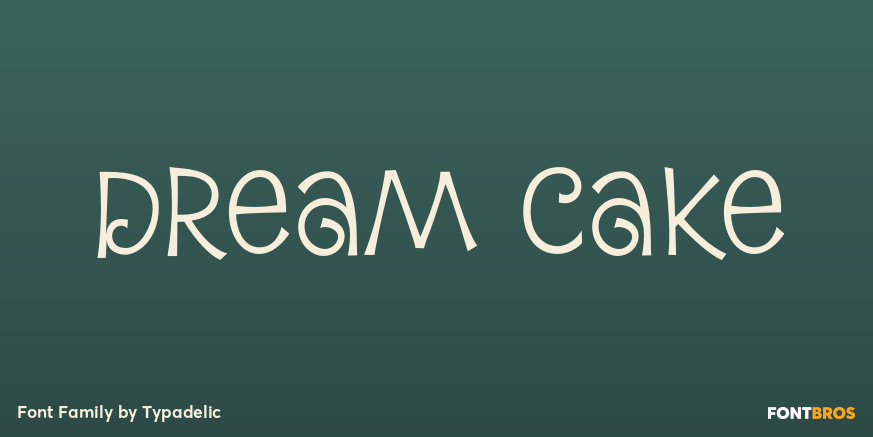
About Dream Cake
While I was developing this font, my mother kept feeding me something she calls ?Dream Cake?. This indescribably delicious confection fueled my inspiration (there\’s nothing like a constant sugar-high to keep you going!) and the result is this cute little…